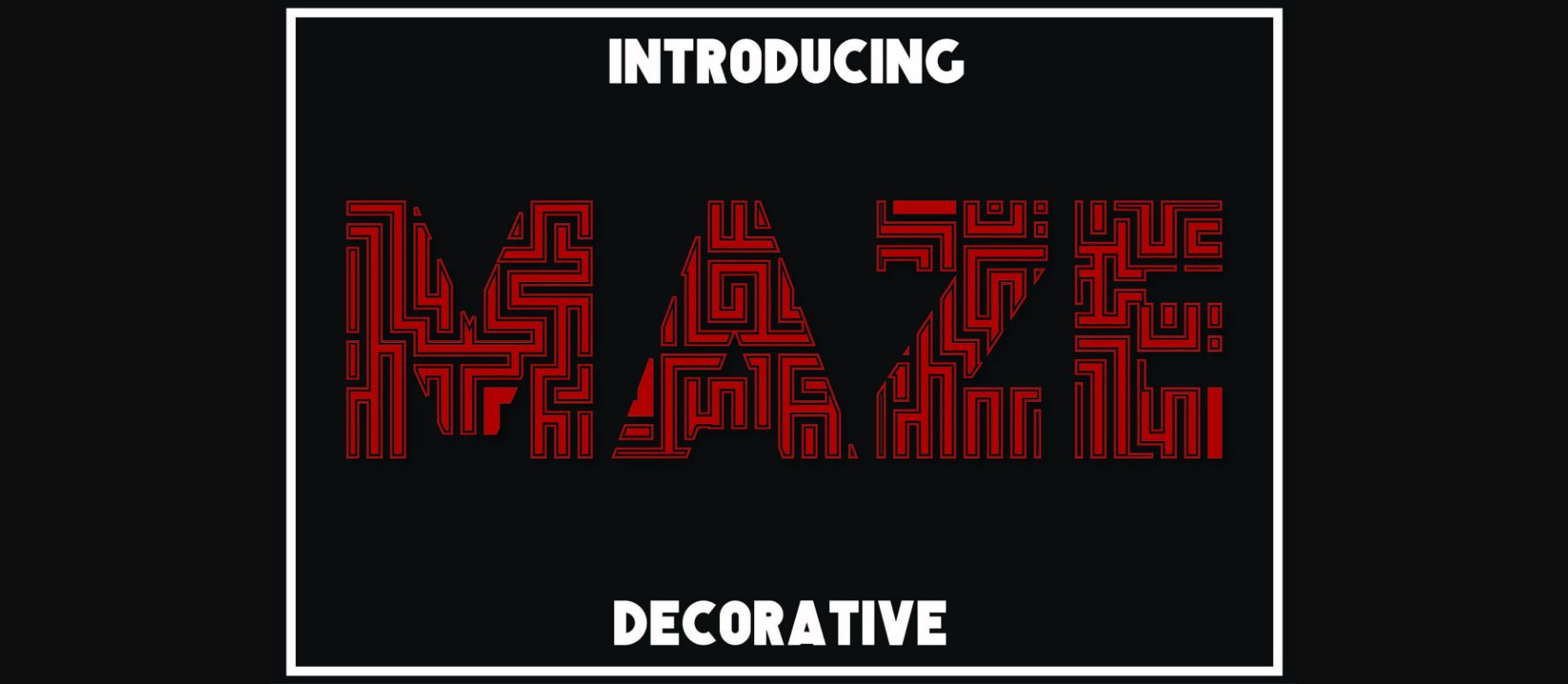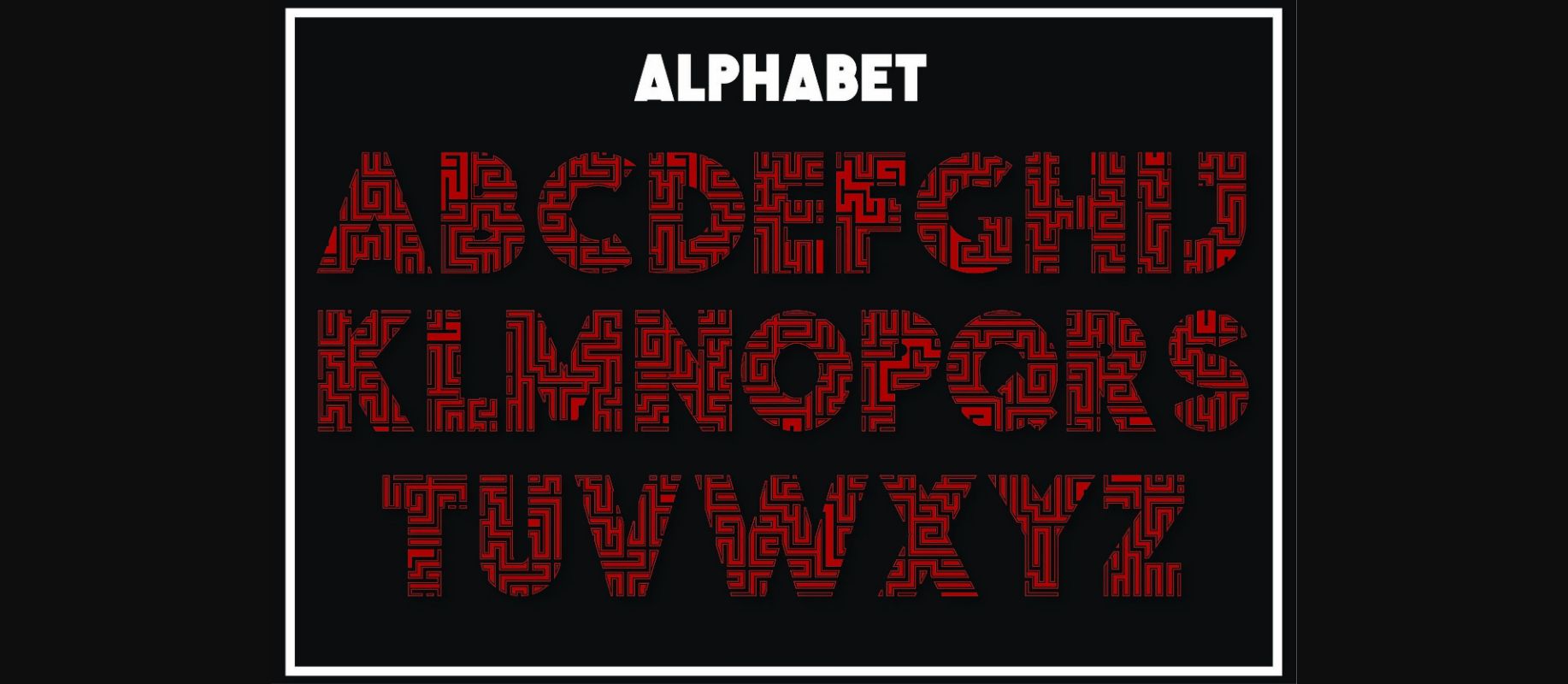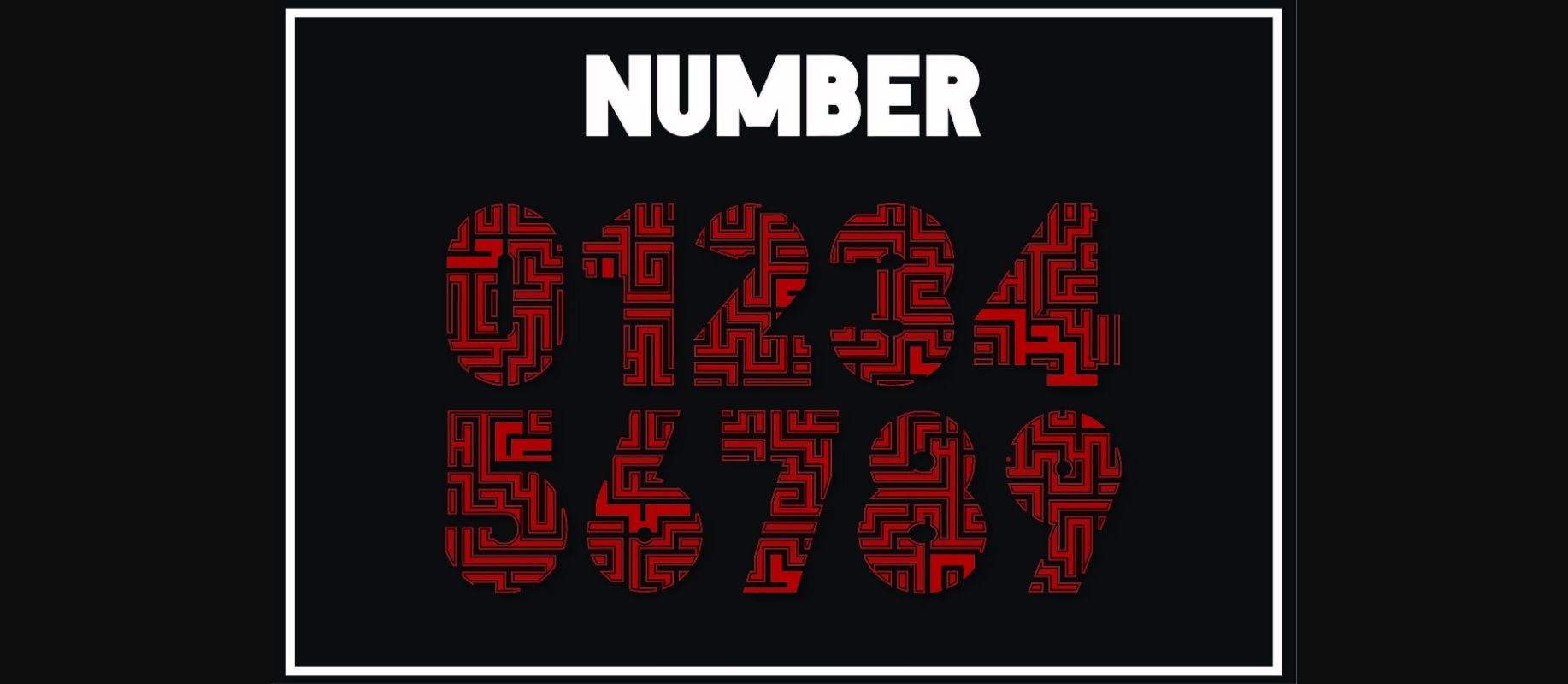
Maze is a geometrical and incredibly original display font. This fun and quirky look will appeal to a wide range of crafty ideas, from letterheads and posters to apparel.